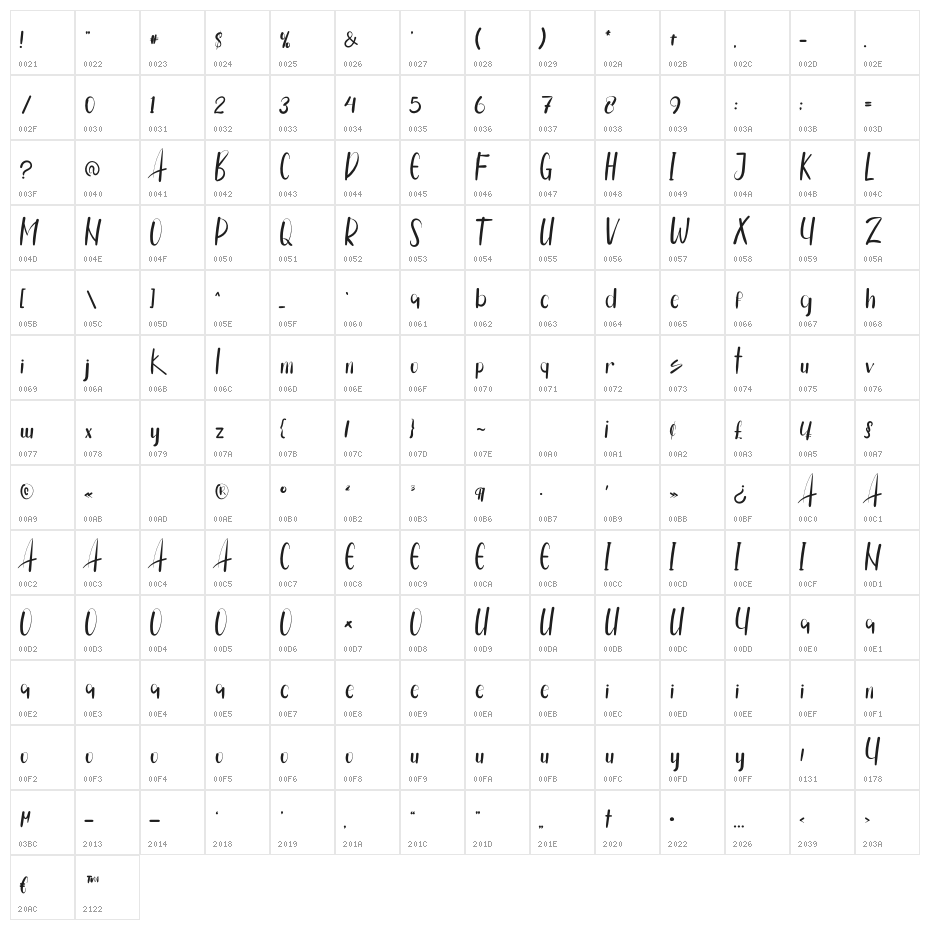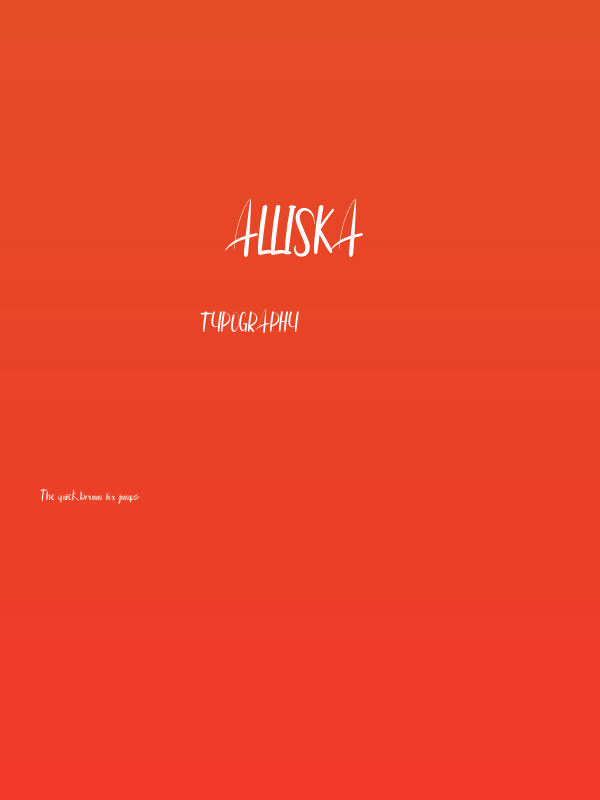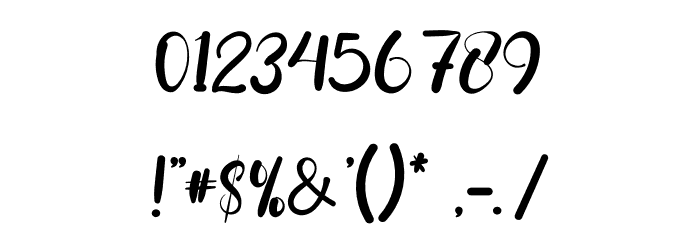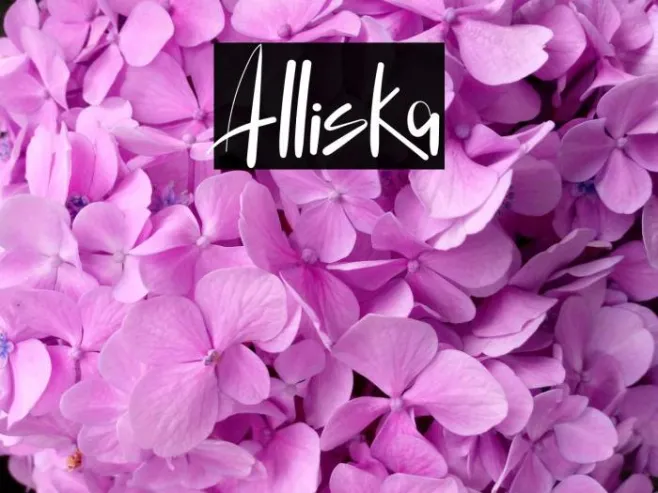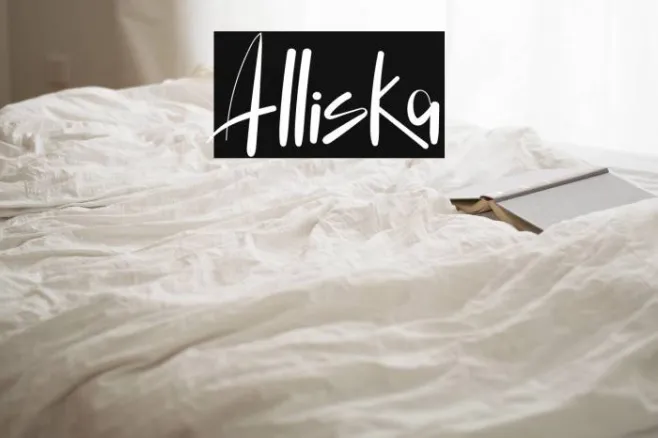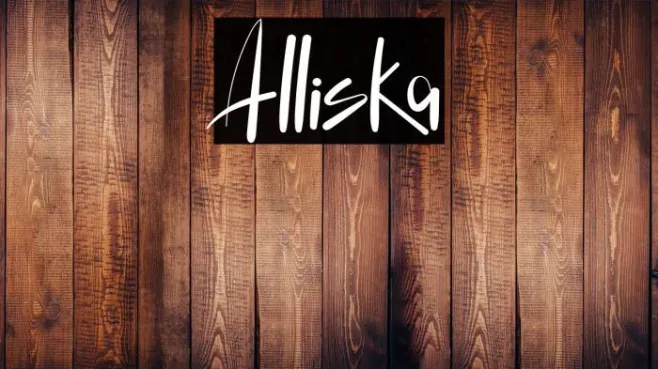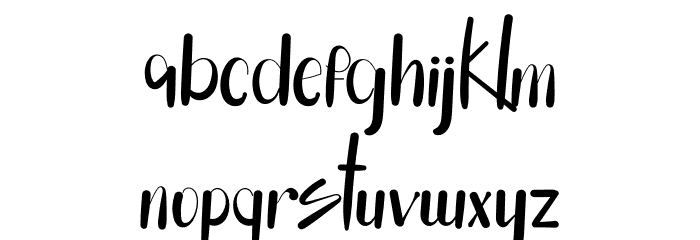
Alliska Font
Alliska Description
This font features a lively and expressive style, characterized by its flowing, handwritten appearance. The uppercase letters are tall and slender, with a slight slant that adds a dynamic feel. The lowercase letters maintain a consistent rhythm, with rounded forms and smooth connections that enhance readability. The numerals are playful yet clear, making them suitable for a variety of contexts. Special characters are thoughtfully designed, complementing the overall aesthetic. This font's unique charm makes it ideal for creative projects that require a personal touch.
| Proposed Projects | Ideal for greeting cards, invitations, branding, and social media graphics. |